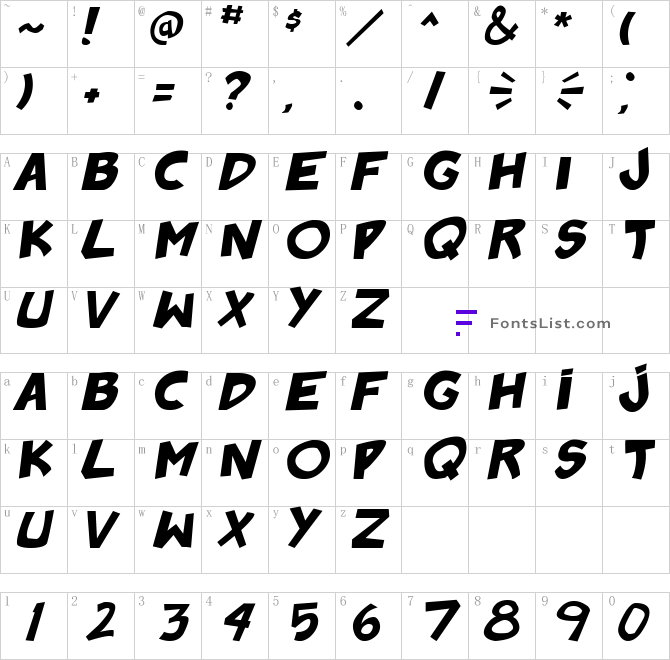
- Font Name:badonk-a-donk2
badonk-a-donk2-Italic.otf is a very beautiful artistic font, badonk-a-donk2-Italic.otf is widely used in the design and printing of various books and pictures,badonk-a-donk2-Italic.otf has a strong visual impact,badonk-a-donk2-Italic.otf is a commonly used font in newspapers, magazines and books, and is used in posters, e-commerce Poster design, store design, logo design, font design and other fields.badonk-a-donk2-Italic.